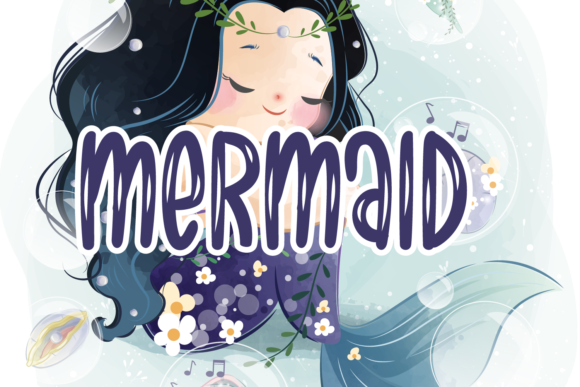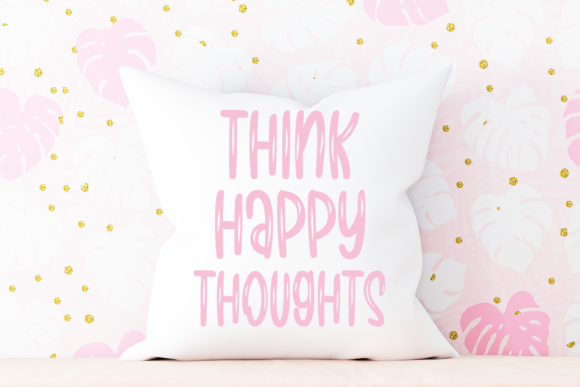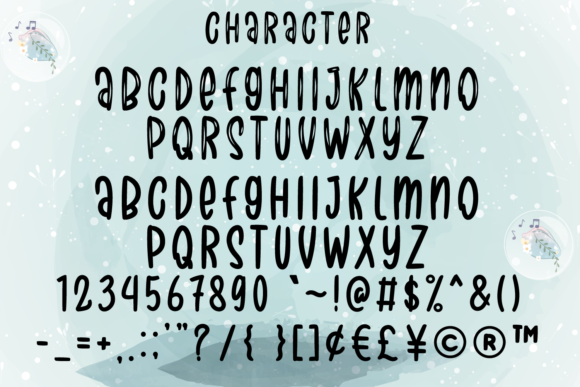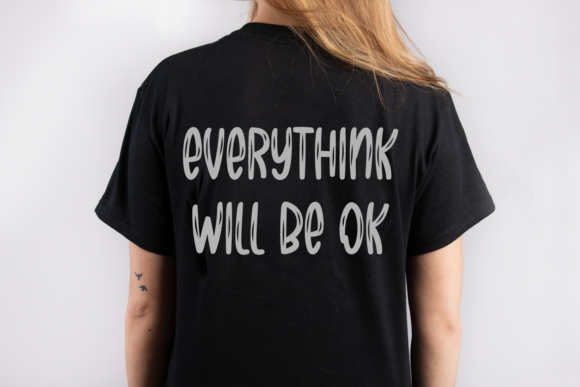
Unlock the Power of Beauty Story Font: Elevate Your Creations
| 👤 Author | Planetz studio |
Enter Beauty Story Font, a cool and casual display font that’s sure to elevate any creation. Whether you’re designing a brochure, creating a social media campaign, or crafting a blog post, this font has the potential to take your work to the next level. With Beauty Story Font, you’ll have the versatility to tackle any topic and create stunning visual content that resonates with your audience.
Beauty Story Font Key Features
- Font Family: Beauty Story Font is a sans-serif font family with a modern and elegant design.
- Unique Characteristics: Features a unique blend of modern and vintage elements, with subtle flair and ornate details that add a touch of sophistication to any design.
Beauty Story Font Review
Overall, I think the Beauty Story Font is a beautiful and elegant addition to any design project. ✨ It’s perfect for creating a feminine and luxurious feel, and it’s sure to grab the attention of your audience.
The font is highly customizable, allowing you to adjust the weight, size, and color to fit your design needs. ✨ It’s also a great choice for creating headings and titles, as it adds a touch of sophistication and glamour.
- Beautiful and elegant design
- Perfect for creating feminine and luxurious feels
- Great choice for headings and titles
- May not be suitable for bold or edgy designs
- Some users may find the font too feminine or over-the-top
Overall, I would give the Beauty Story Font 4 out of 5 stars. While it has some limitations, it’s a beautiful and elegant font that’s perfect for certain design projects. With a little creativity and experimentation, you can create some truly stunning designs with this font.
Beauty Story Font is ideal for fashion, beauty, and lifestyle-related designs. It’s also great for creating eye-catching headlines and titles.
Some tips to get the most out of Beauty Story Font include:
- Using it in combination with bold or italic styles to add emphasis.
- Experimenting with different font sizes to create visual hierarchy.
- Pairing it with other fonts to create a unique and stylish look.